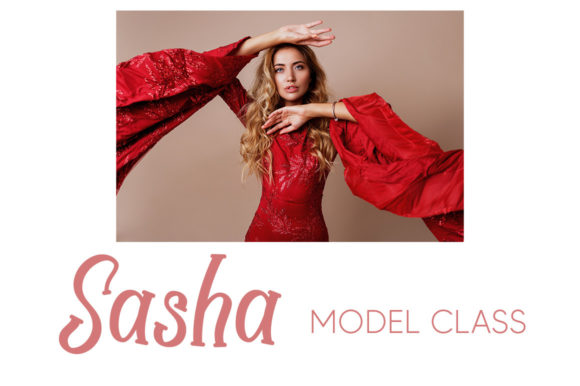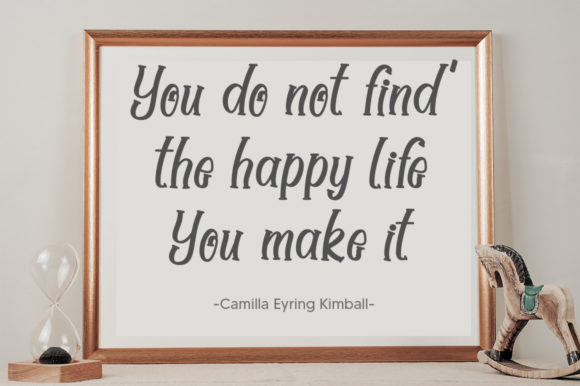
Florentina Font
db-ku.com - Script & Handwritten -- Florentina is a magical handwritten font. It looks ravishing on invitations, thank you cards, quotes, greeting cards, logos, business cards and every other design which needs a customized touch.